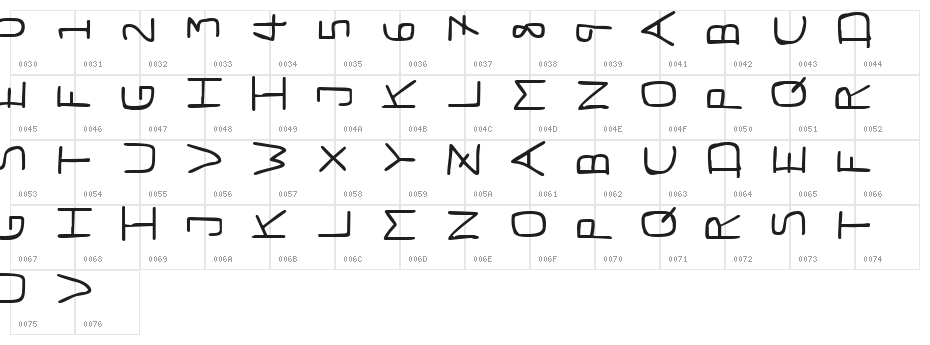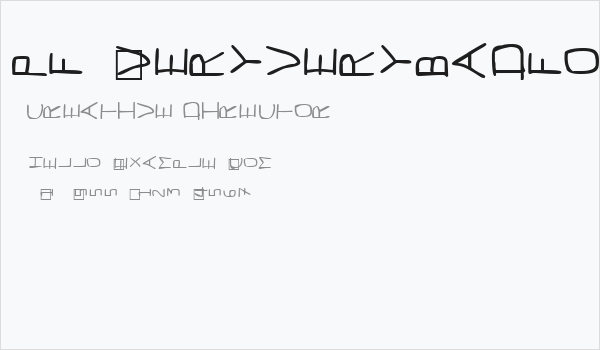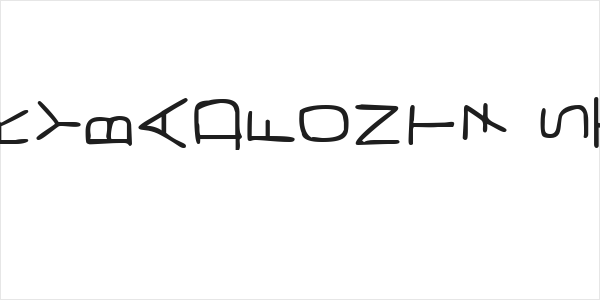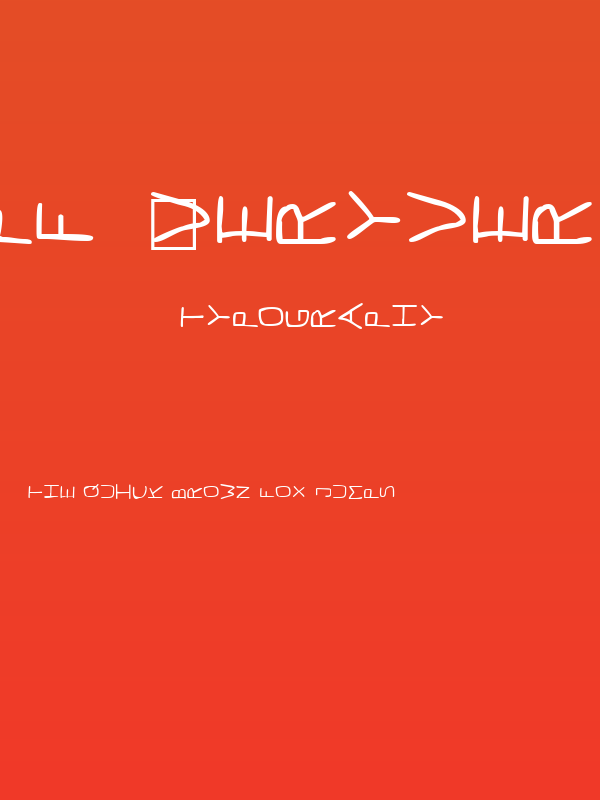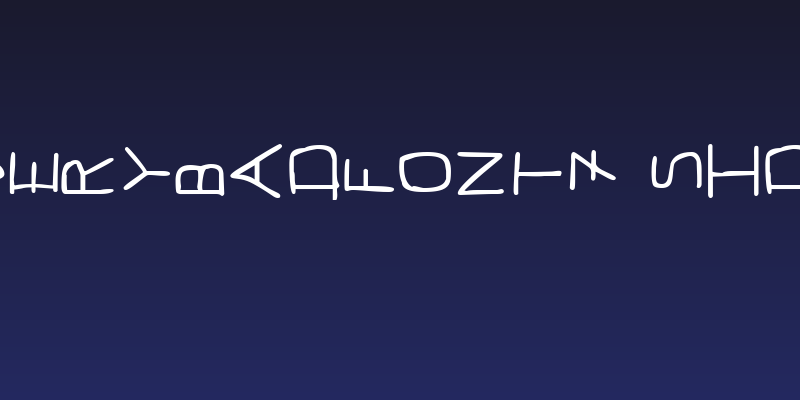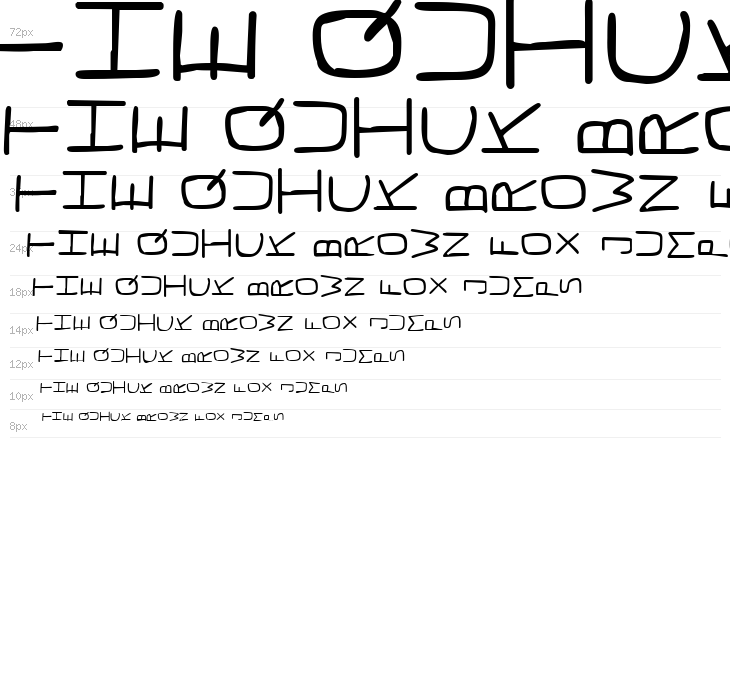
Pf_veryverybadfont7 sideways Font
Pf_veryverybadfont7 sideways Description
This font features a unique, abstract design with characters that appear to be rotated or mirrored, creating a cryptic and artistic appearance. The strokes are consistent in thickness, giving it a uniform look despite its unconventional style. The characters are spaced evenly, maintaining a balanced visual flow. This font's distinctiveness makes it stand out, offering a creative twist to traditional typography.
| Use Case | Logos, Art projects, Creative branding |
| Proposed Projects | Ideal for artistic projects, modern art displays, or creative branding that seeks to capture attention with its unconventional style. |